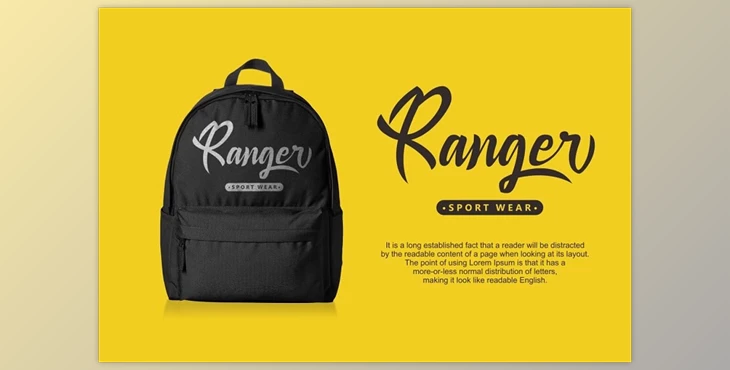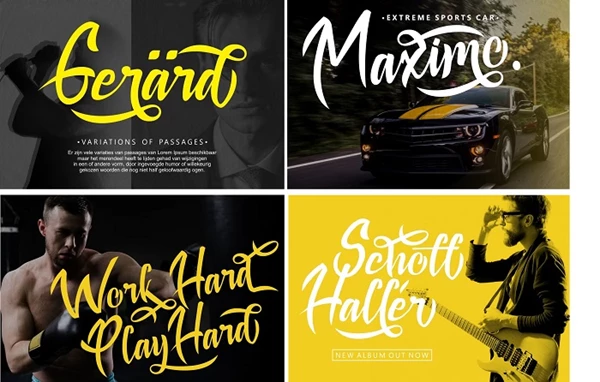
The Rashard brush lettering font offers a natural handwritten aesthetic, crafted through a pen-and-paper process and refined digitally.
Versatile for various design needs like logos, quotes, social media posts, and packaging, Rashard includes OpenType features for customization.